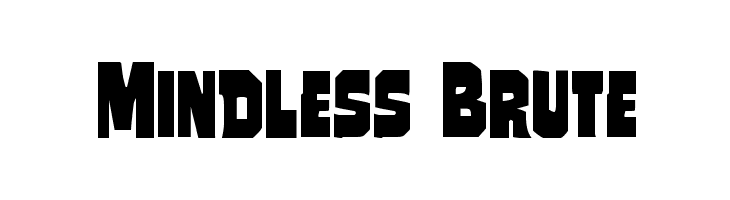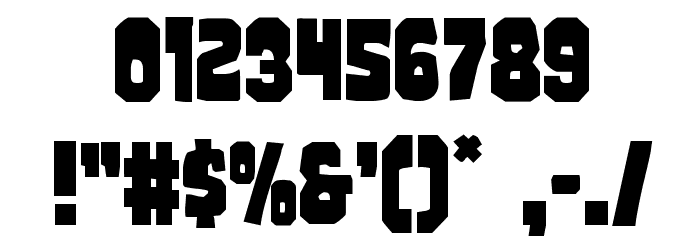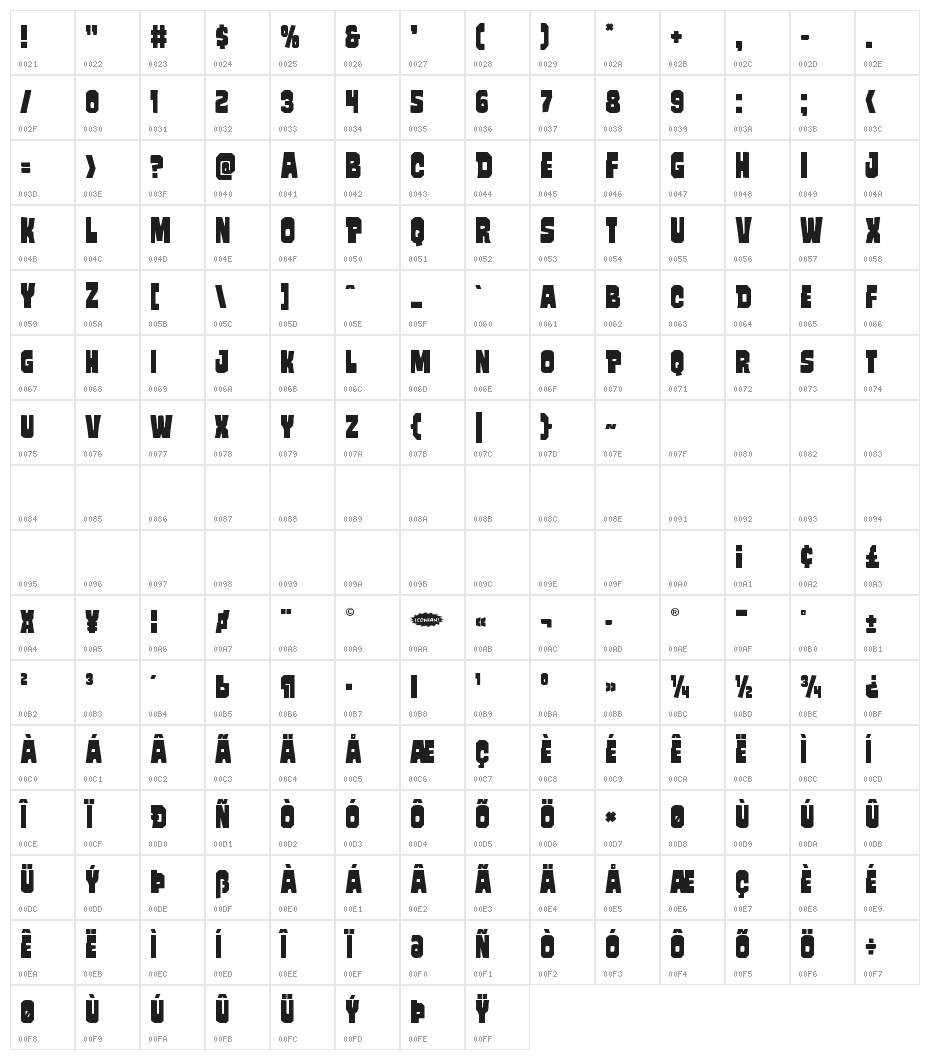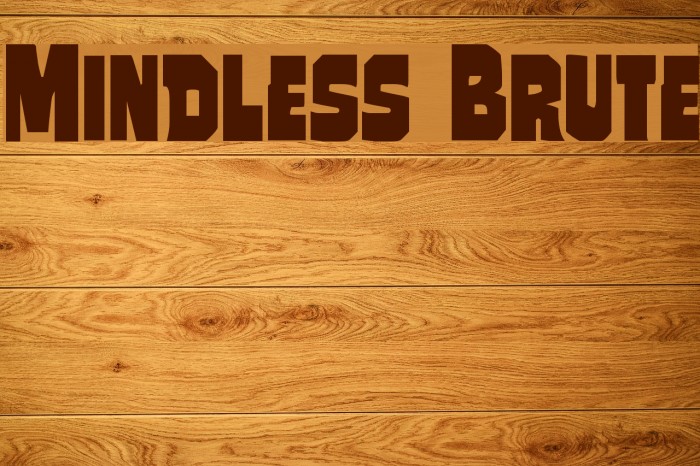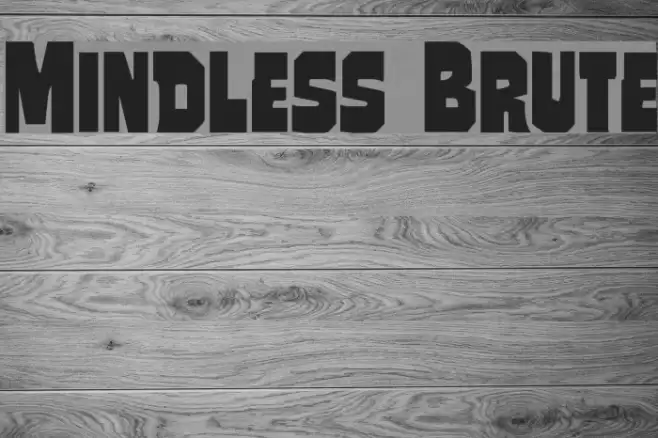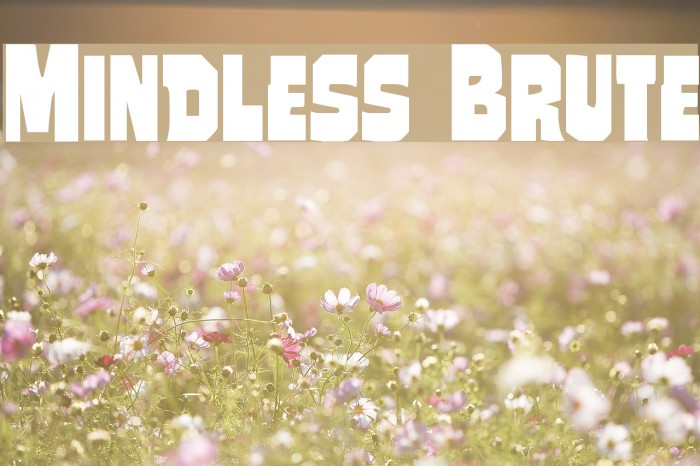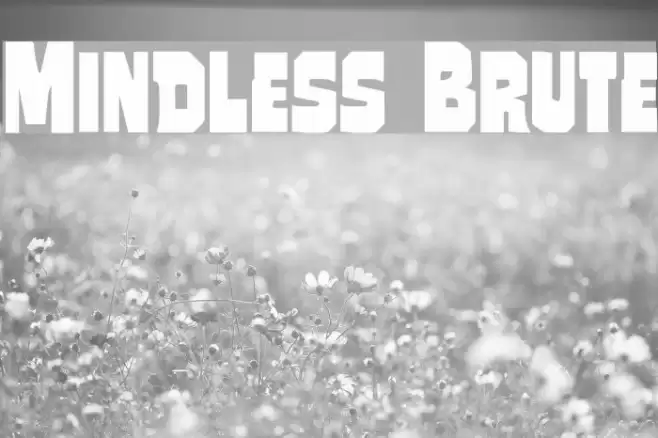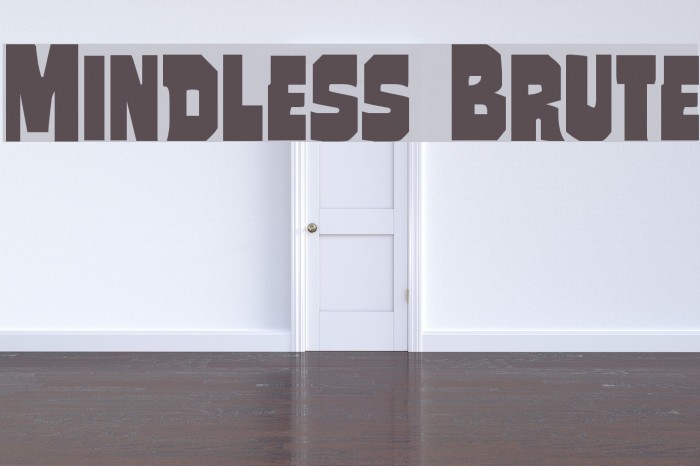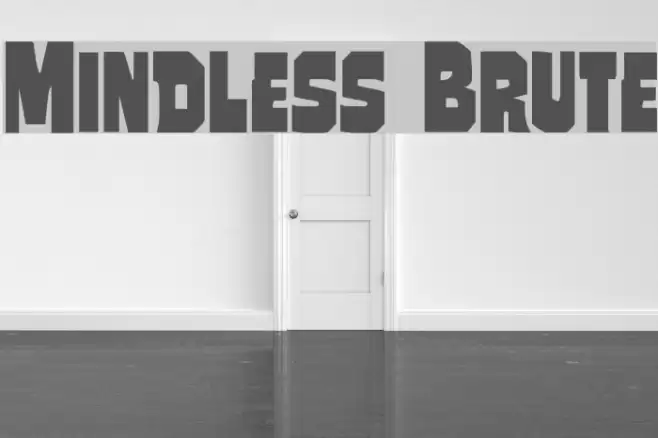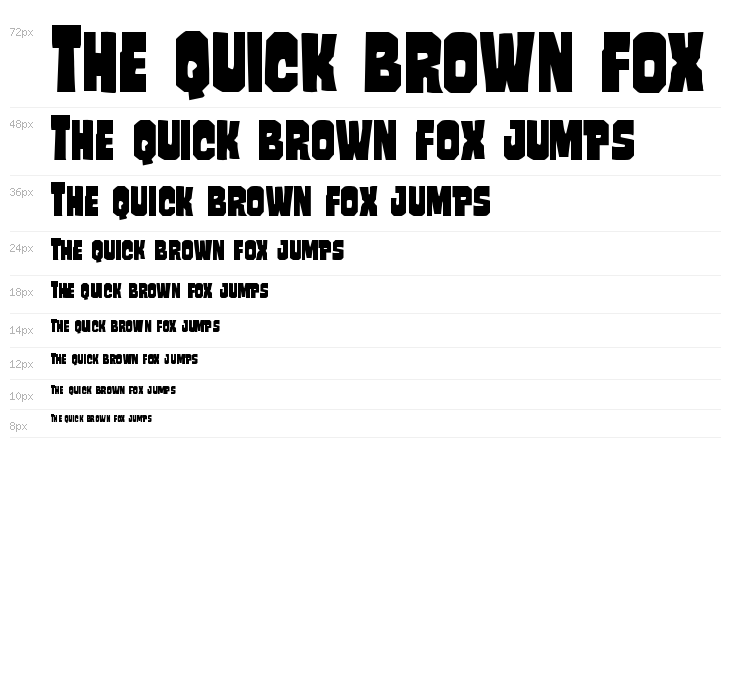
Mindless Brute Font
Mindless Brute Description
This font is bold and impactful, characterized by its thick, blocky letters that convey strength and assertiveness. The uppercase letters dominate the design, with sharp angles and a solid presence that makes them stand out. The numbers and special characters maintain the same robust style, ensuring consistency across all elements. The font's design is reminiscent of industrial or sports-themed aesthetics, making it ideal for projects that require a strong visual impact. Its boldness and unique style make it suitable for attention-grabbing headlines and logos.
| Proposed Projects | Ideal for sports branding, posters, headlines, and logos that require a strong visual impact. |